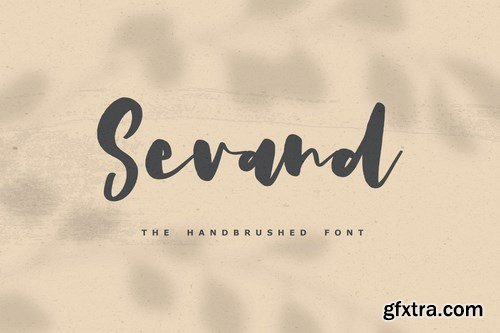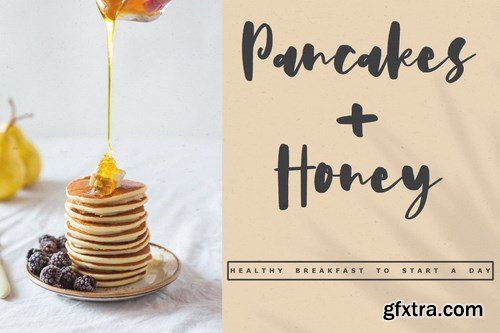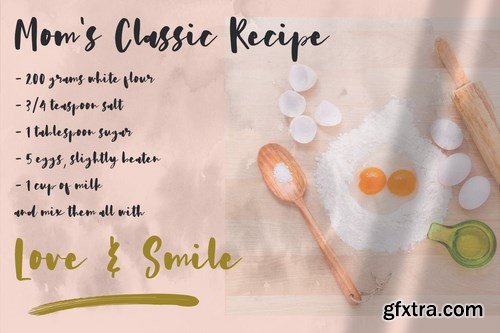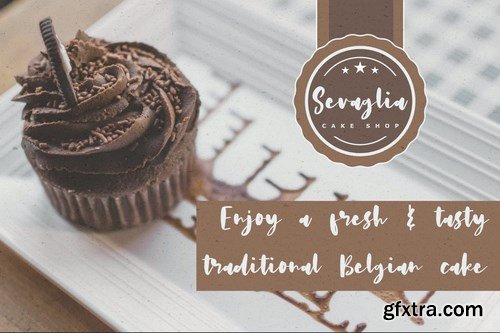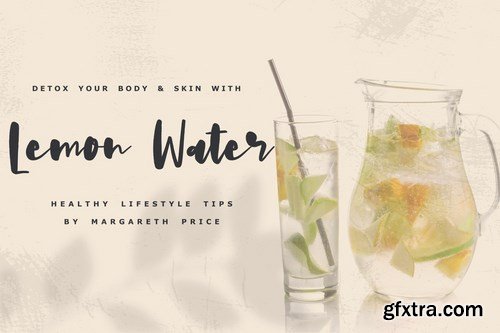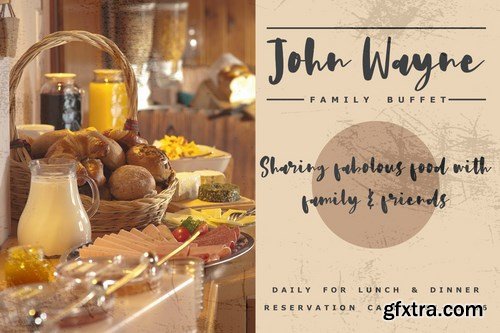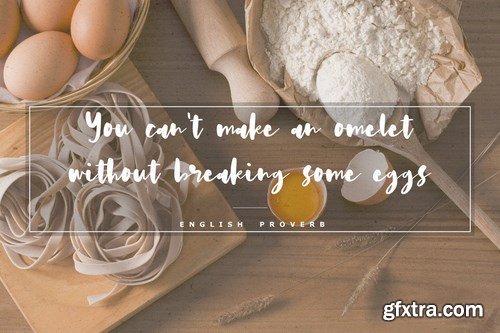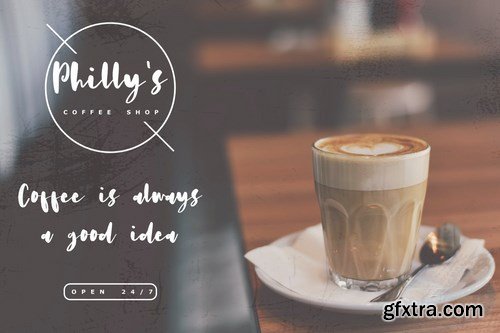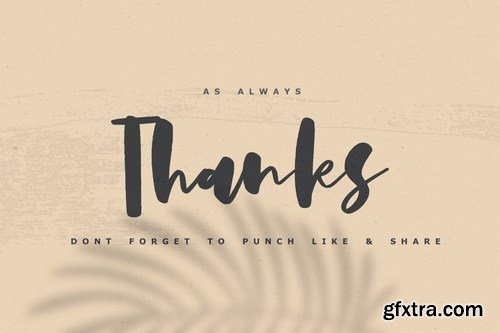
Sevand - The Hand brushed Font
Sevand - The Hand brushed Font, every single letter has been carefully crafted to make your text looks beautiful. it's perfect for logos, name cards, magazine layouts, invitations, headers, or even large-scale artwork.